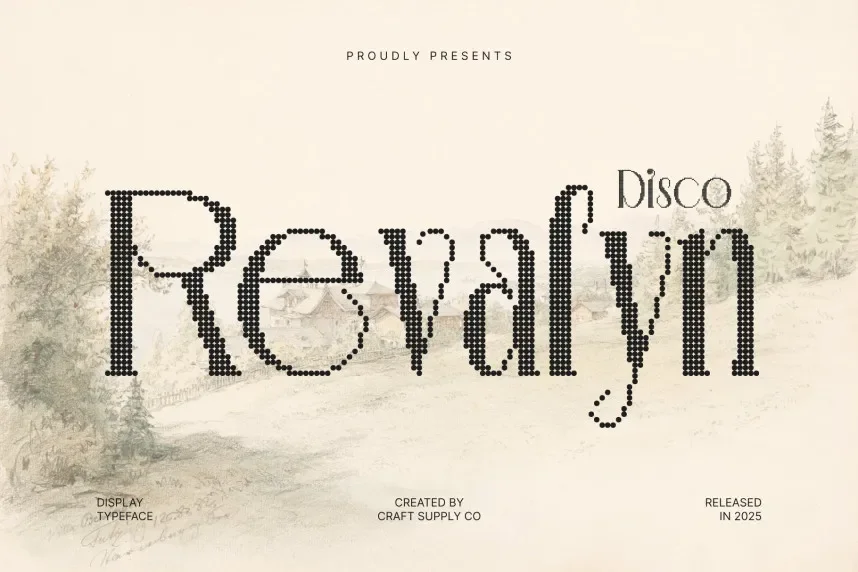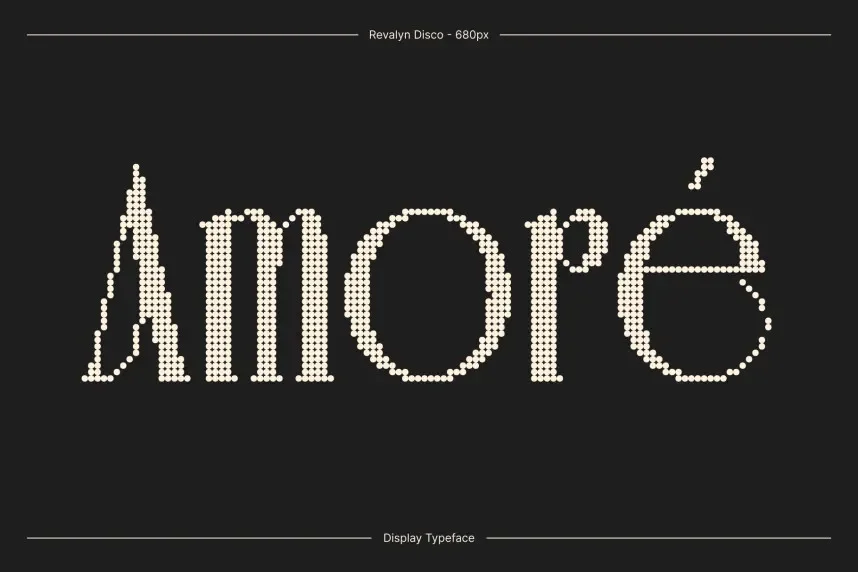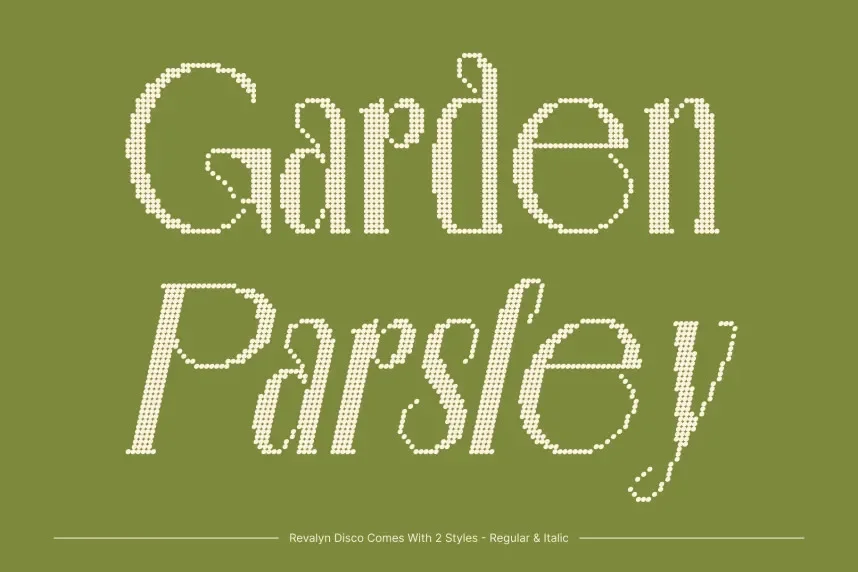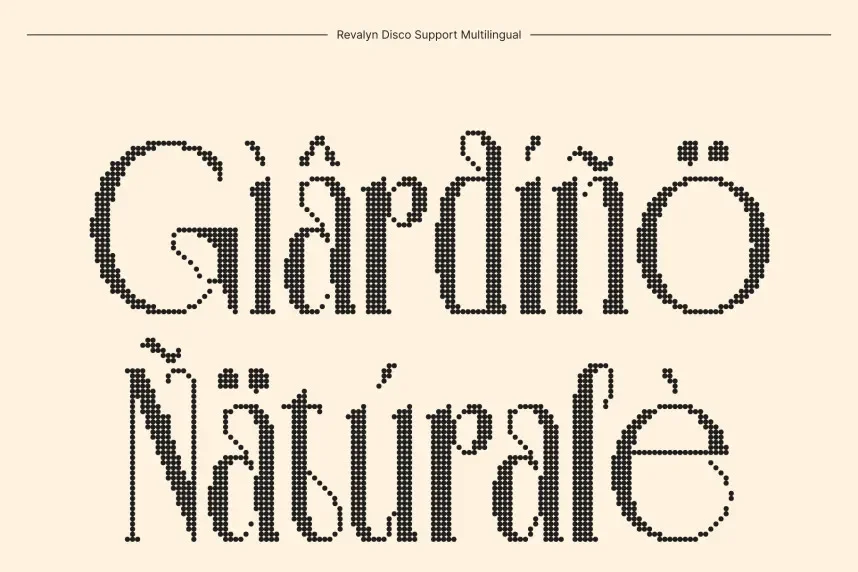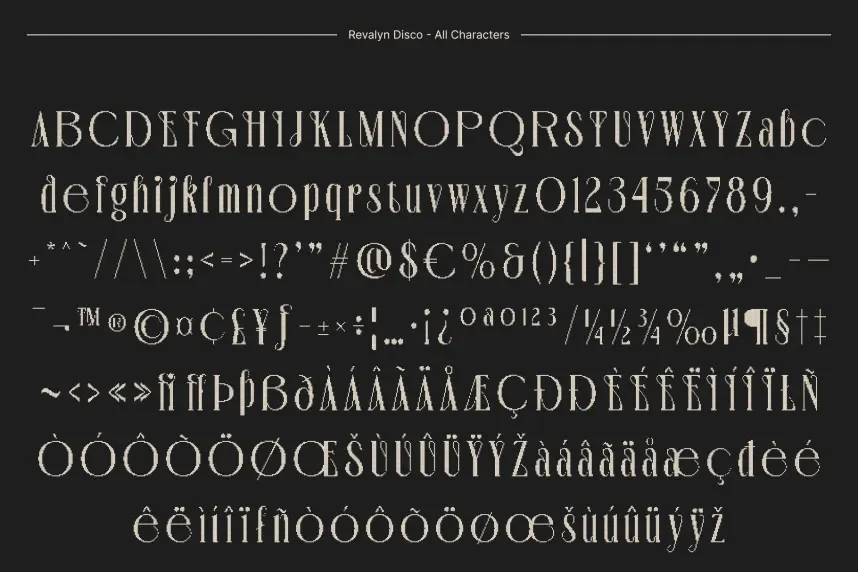
Revalyn Disco Font solves readability issues common in retro display typography. Many disco-style fonts become hard to read when used beyond decorative headlines.
Revalyn Disco is a retro display font with rounded shapes, bold strokes, and rhythmic letterforms inspired by vintage disco typography. Stroke contrast remains low to preserve clarity.